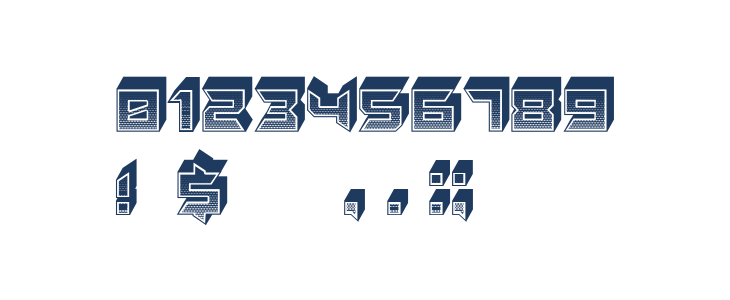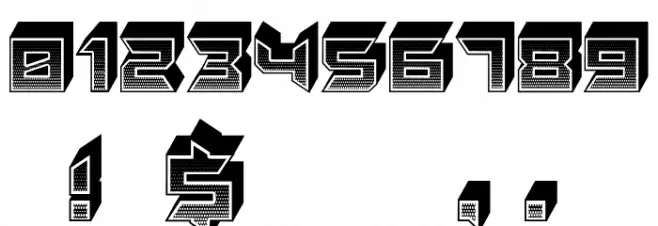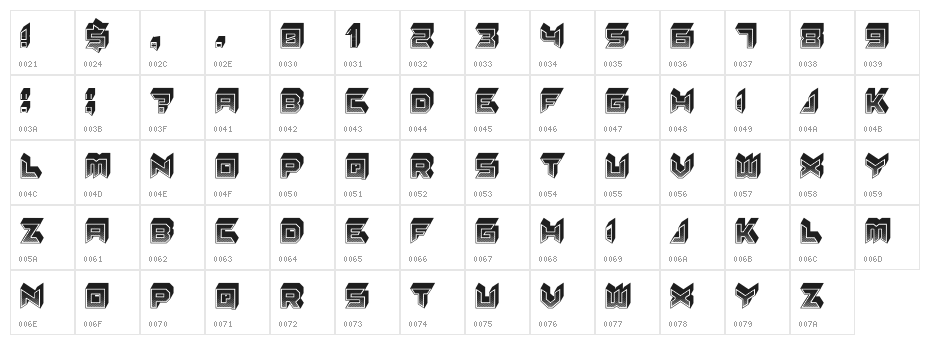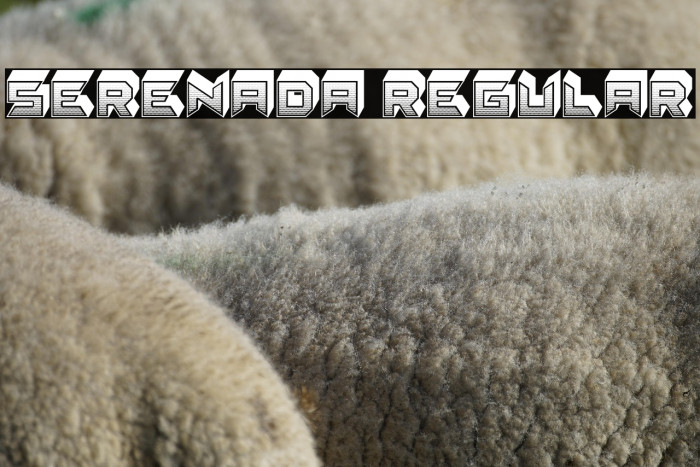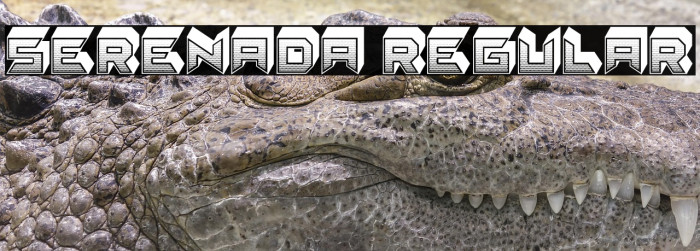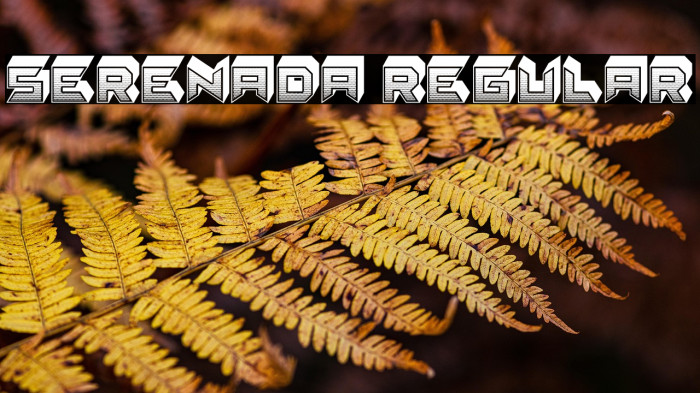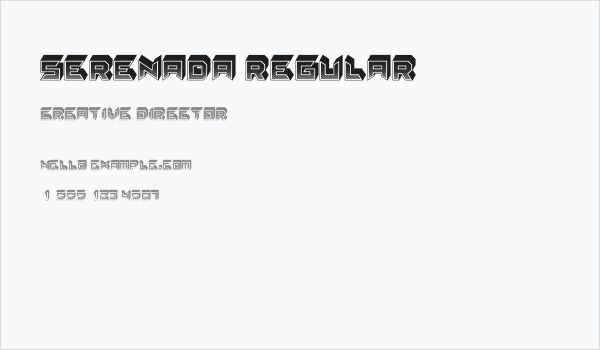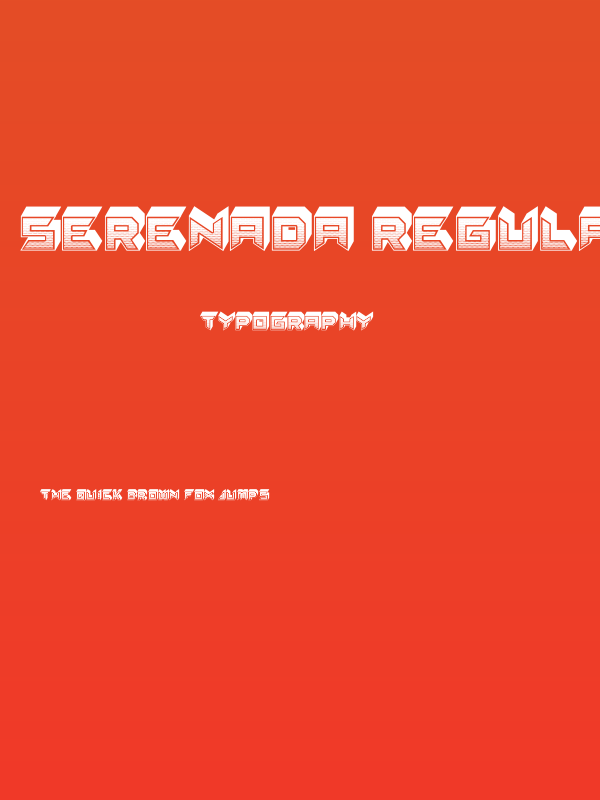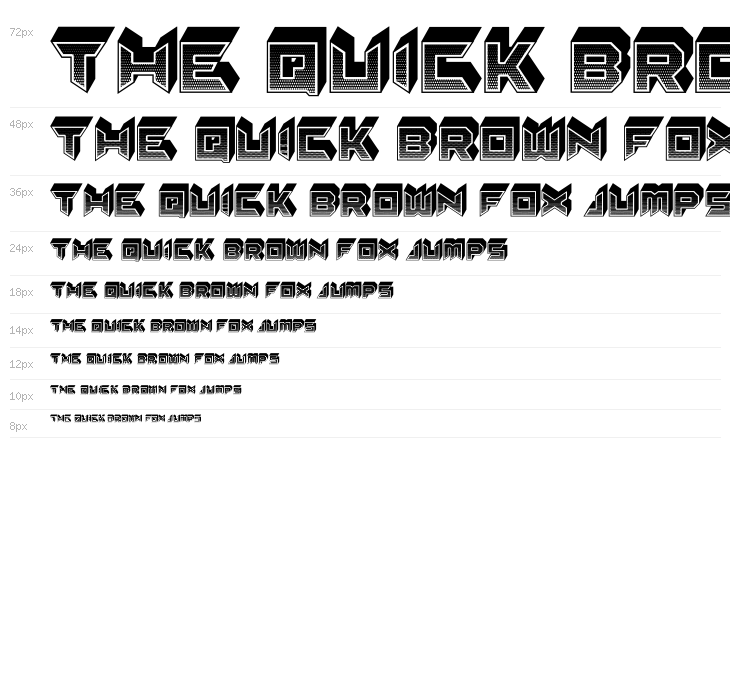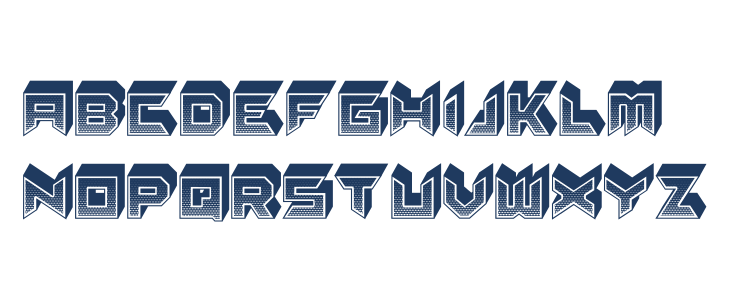
Serenada Regular Font
Serenada Regular Description
This font features a bold, geometric design with a three-dimensional effect. The letters are constructed with sharp angles and a distinct shadowing technique that gives them a dynamic, futuristic appearance. The interior of each character is filled with a dotted pattern, adding texture and depth. This font is highly stylized, making it ideal for attention-grabbing headlines or logos. The numerals and special characters follow the same design principles, ensuring consistency across all elements.
Proposed ProjectsIdeal for sci-fi themed projects, video game titles, posters, and branding that requires a modern, edgy look.